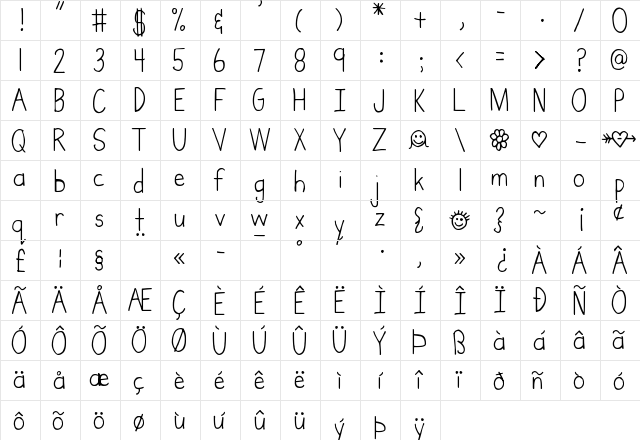
DJB MrsWebster Regular
| Designer | Darcy Baldwin (djbfontography) |
Design Context for DJB MrsWebster Typeface
DJB MrsWebster offers clean, dependable letterforms without strong stylistic allegiance, making it a practical choice for designers who need flexibility.